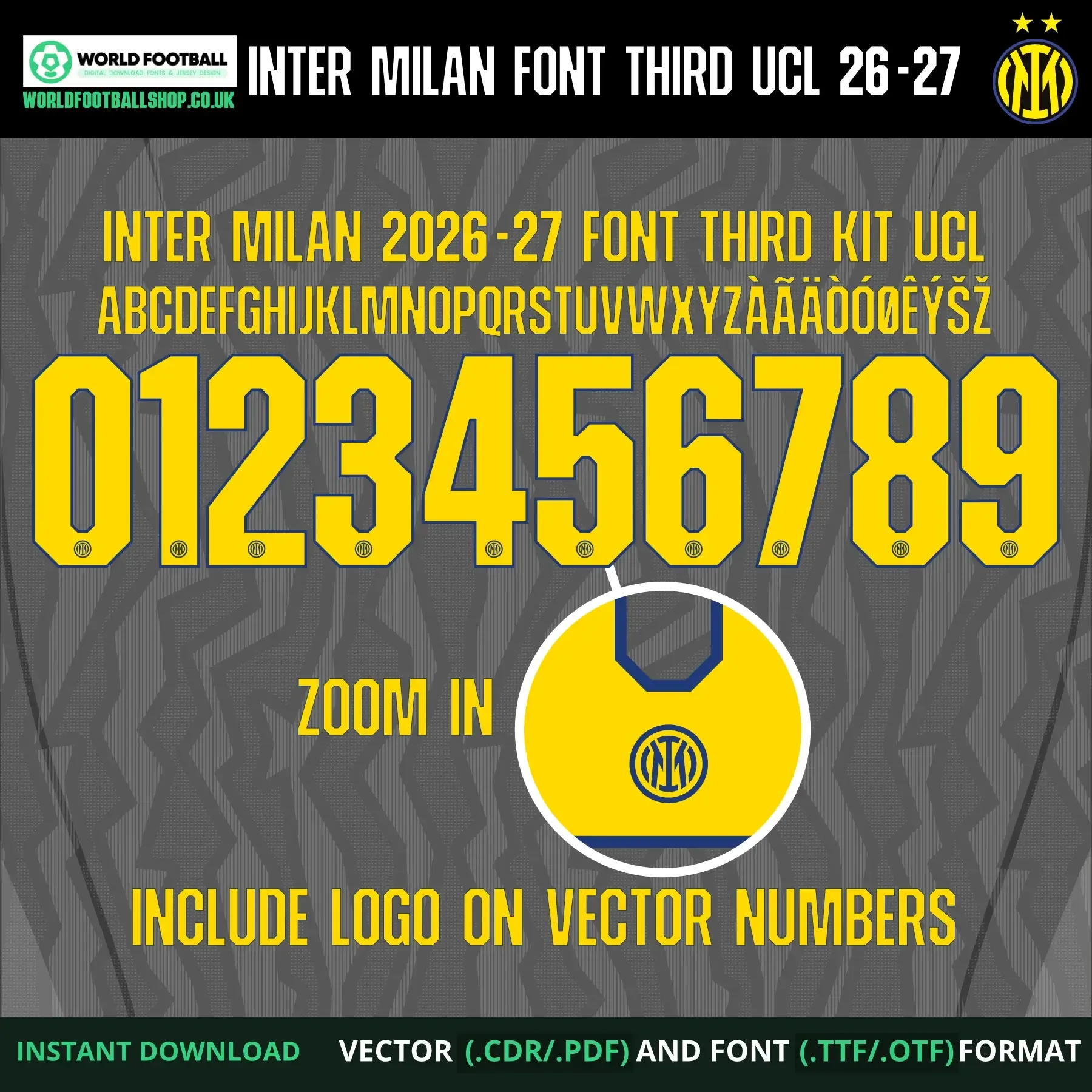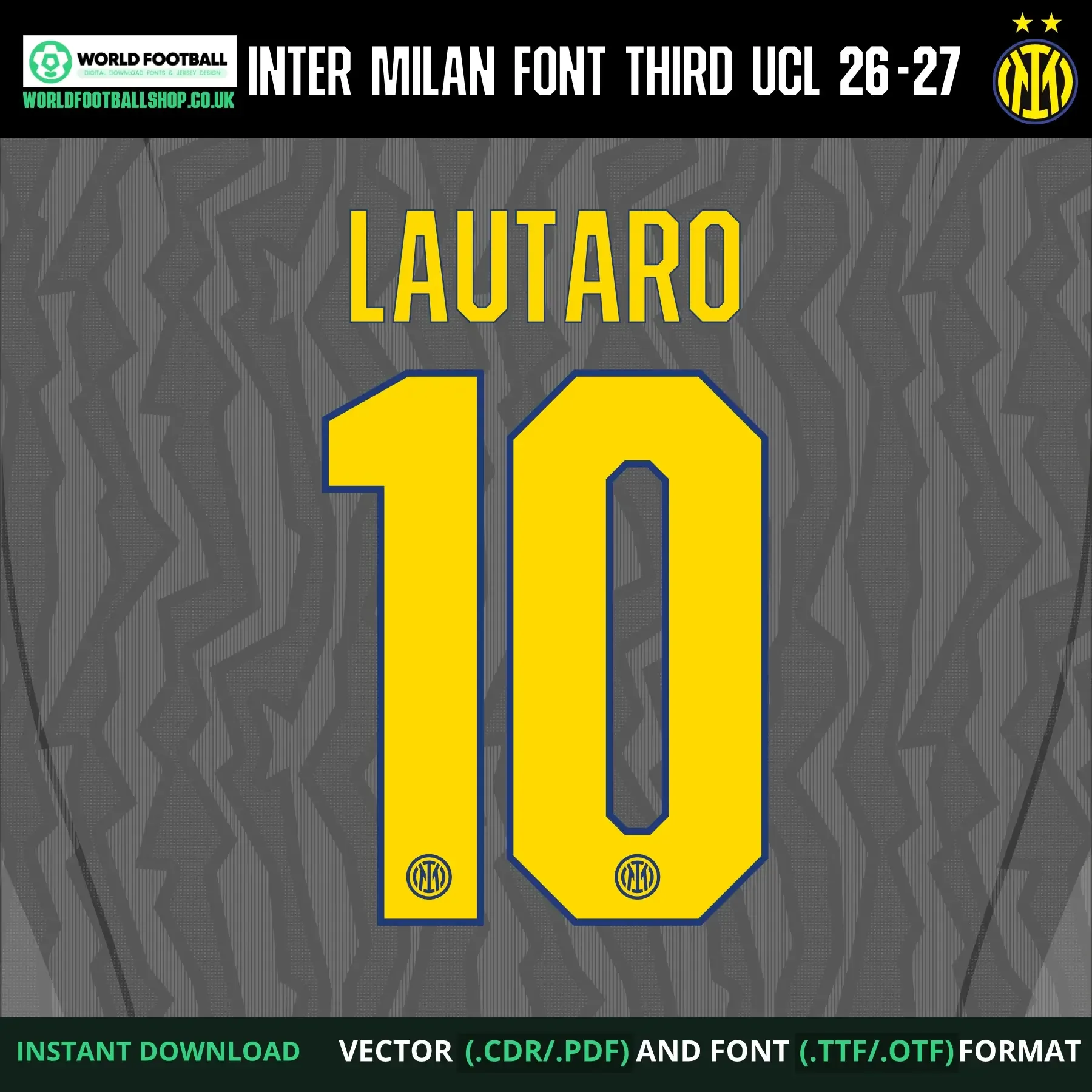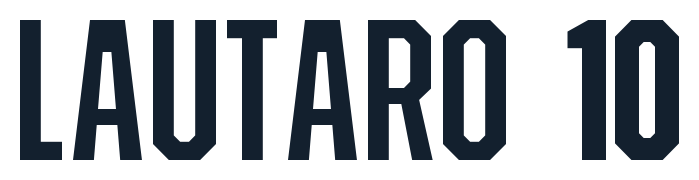
Inter Milan 2026-27 Football Font Vector Third UCL
Inter Milan normally wear their standard Serie A typeface even in Europe, but for 2026-27 they introduced a dedicated Champions League-only font for the third kit - taller, sharper-edged lettering inspired by their iconic 1997-98 shirt. This Inter Milan football font vector captures that identity: bold yellow characters with a thin navy blue outline, set against a dark charcoal background with a subtle zigzag texture, with the club crest embedded at the base of every letter and number. The preview layout shows the full character set alongside a sample name and number combination - LAUTARO 10 - to demonstrate how the font looks applied.
- Tall, sharp-edged yellow-on-grey styling reflects Inter's dedicated Champions League typeface
- Crest detail embedded on every character for a cohesive, kit-inspired look
This font is an independent recreation, studied closely from the third kit's actual Champions League lettering to capture its proportions, outline weight, and crest placement. It's built for jersey mockups, fan art, matchday graphics, and personal creative projects.